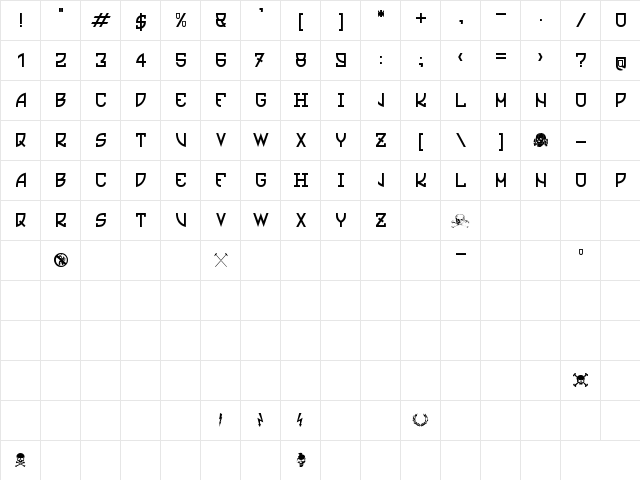
BOYS PARMA 1977 new Regular Font Preview
BOYS PARMA 1977 new Regular
Design Context for BOYS PARMA 1977 new Typeface
BOYS PARMA 1977 new takes a measured approach to typography — its balanced proportions and neutral character make it a reliable workhorse for both digital and print work.
Pro Tip: Use BOYS PARMA 1977 new in both headline and body roles to test its range before committing to a single application.